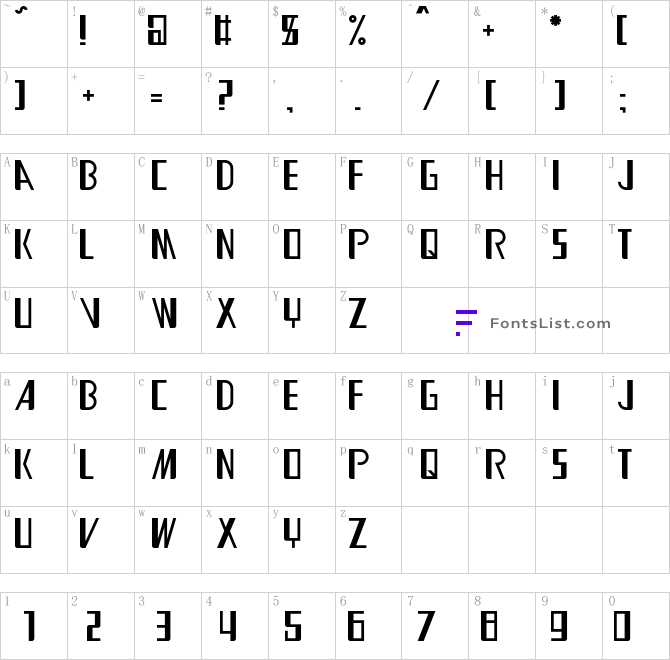
- Font Name:BD Equipment
BDEquipment.otf is a very beautiful artistic font, BDEquipment.otf is widely used in the design and printing of various books and pictures,BDEquipment.otf has a strong visual impact,BDEquipment.otf is a commonly used font in newspapers, magazines and books, and is used in posters, e-commerce Poster design, store design, logo design, font design and other fields.BDEquipment.